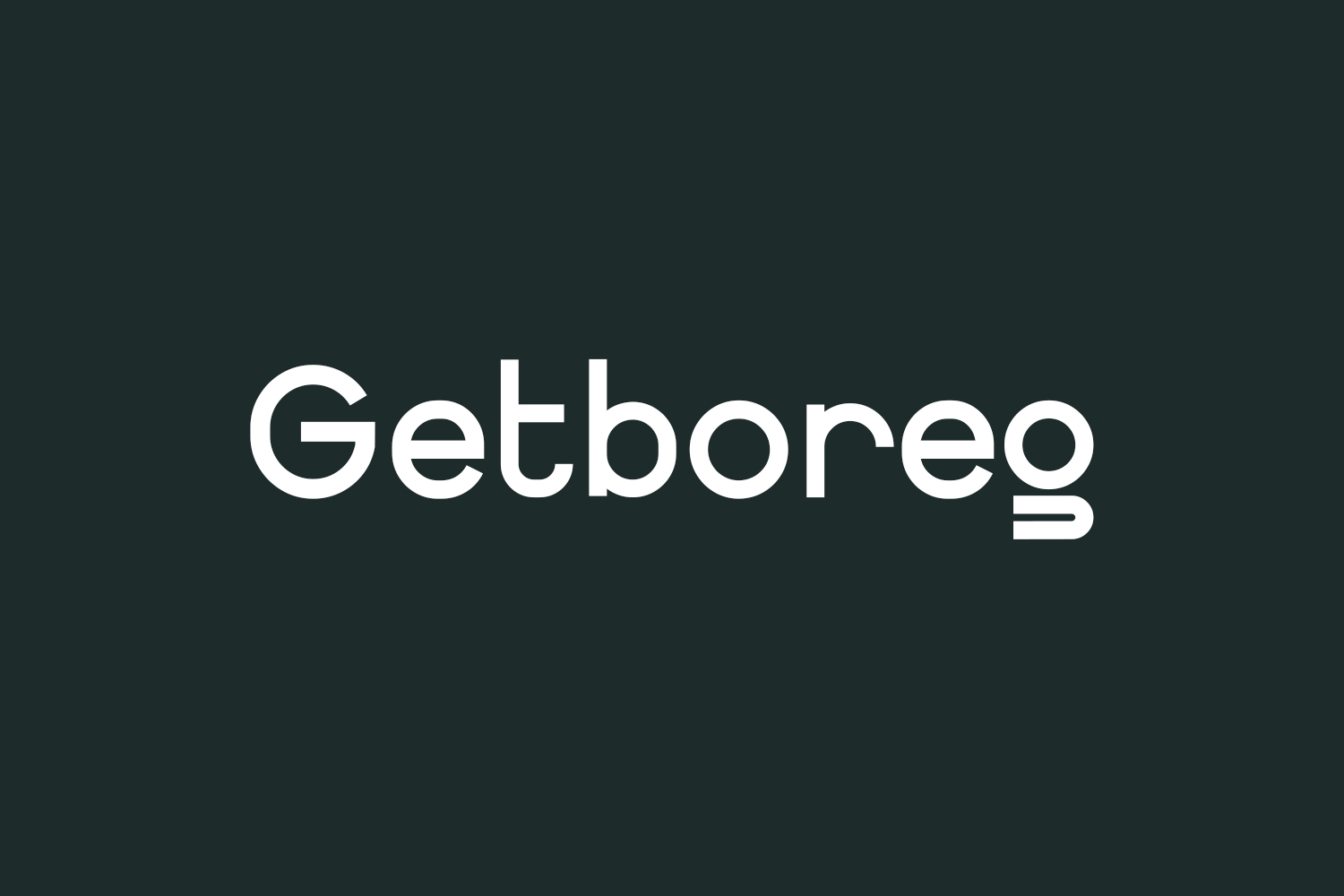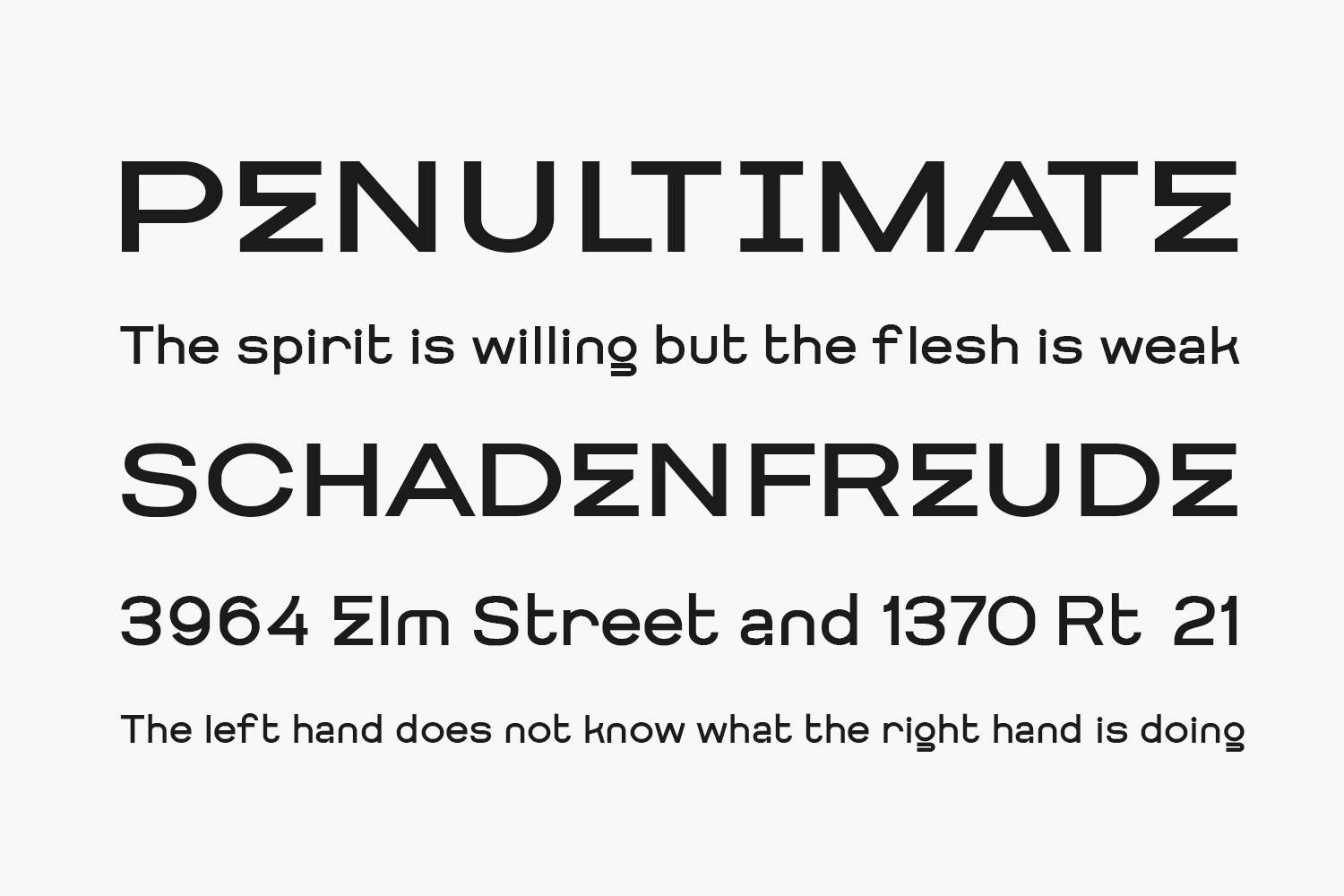
Getboreg Free Font is a captivating and futuristic display font characterized by its sleek, precise lines and confident, innovative lettering. Its geometric shapes and sharp angles combine to produce a cutting-edge aesthetic that’s tailor-made for modern designs in technology, fashion, or advertising. Getboreg Free Font is free for personal use only. Please purchase the full version for commercial use.
Designed by Ffeeaarr